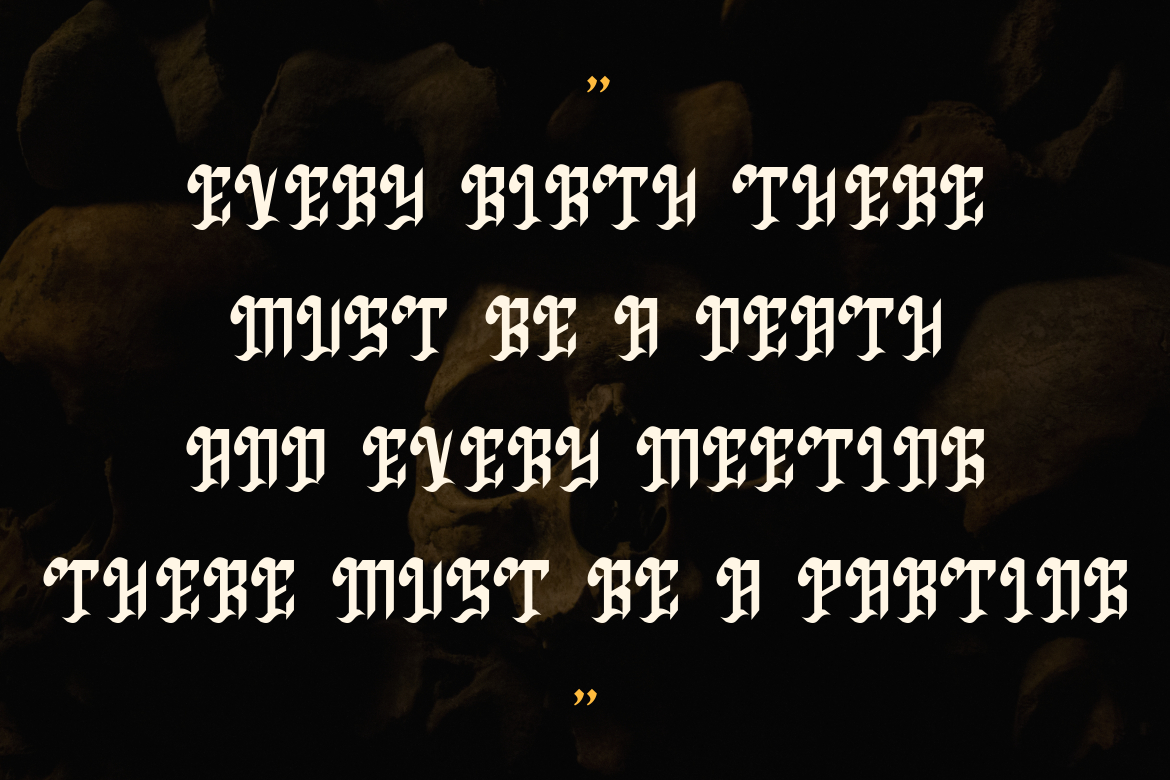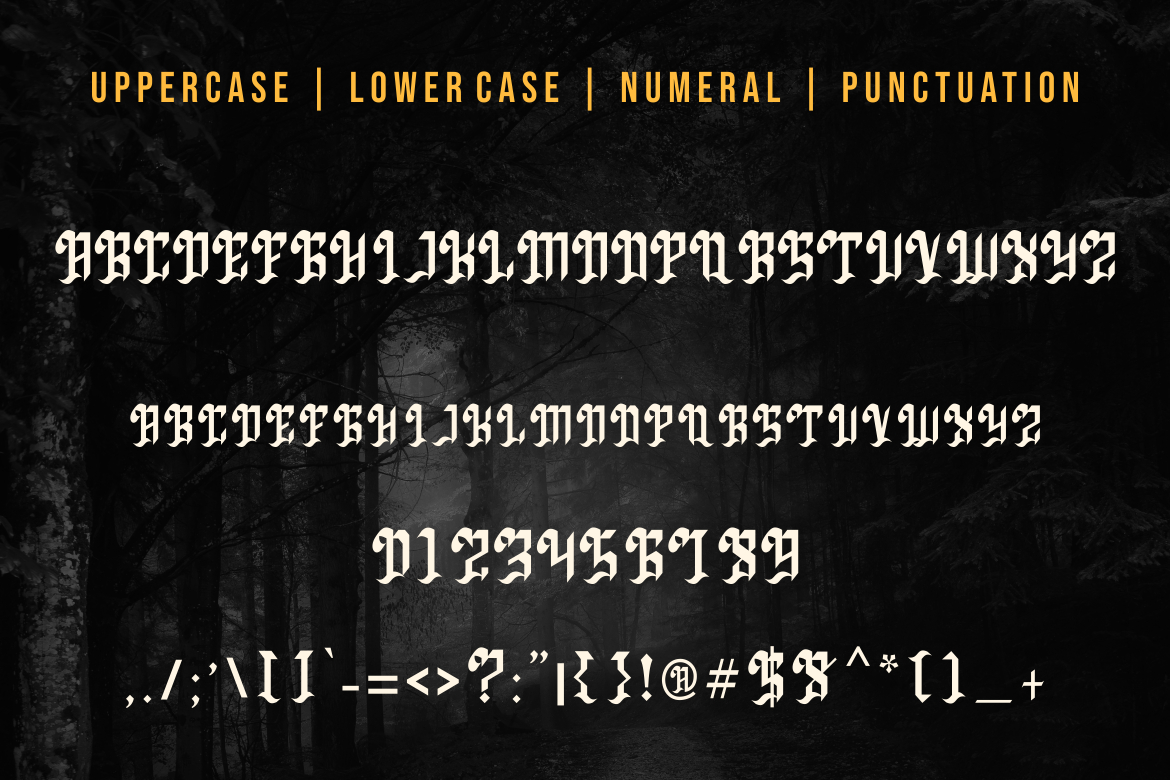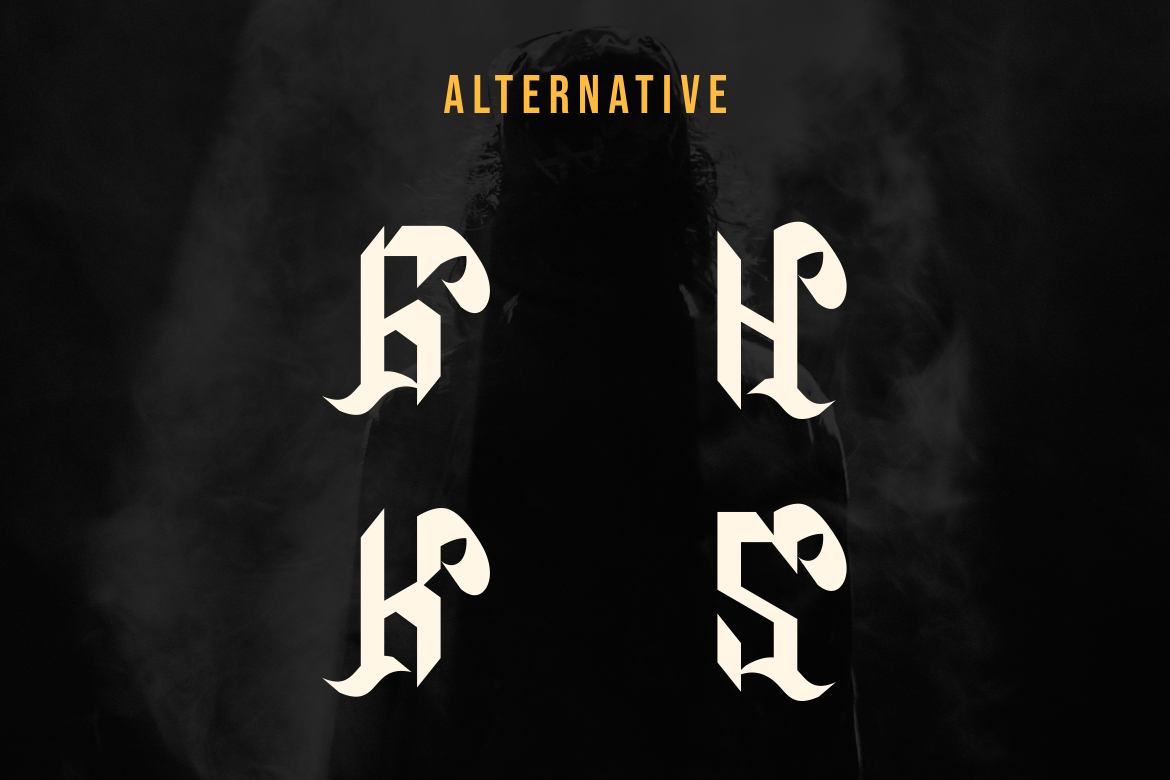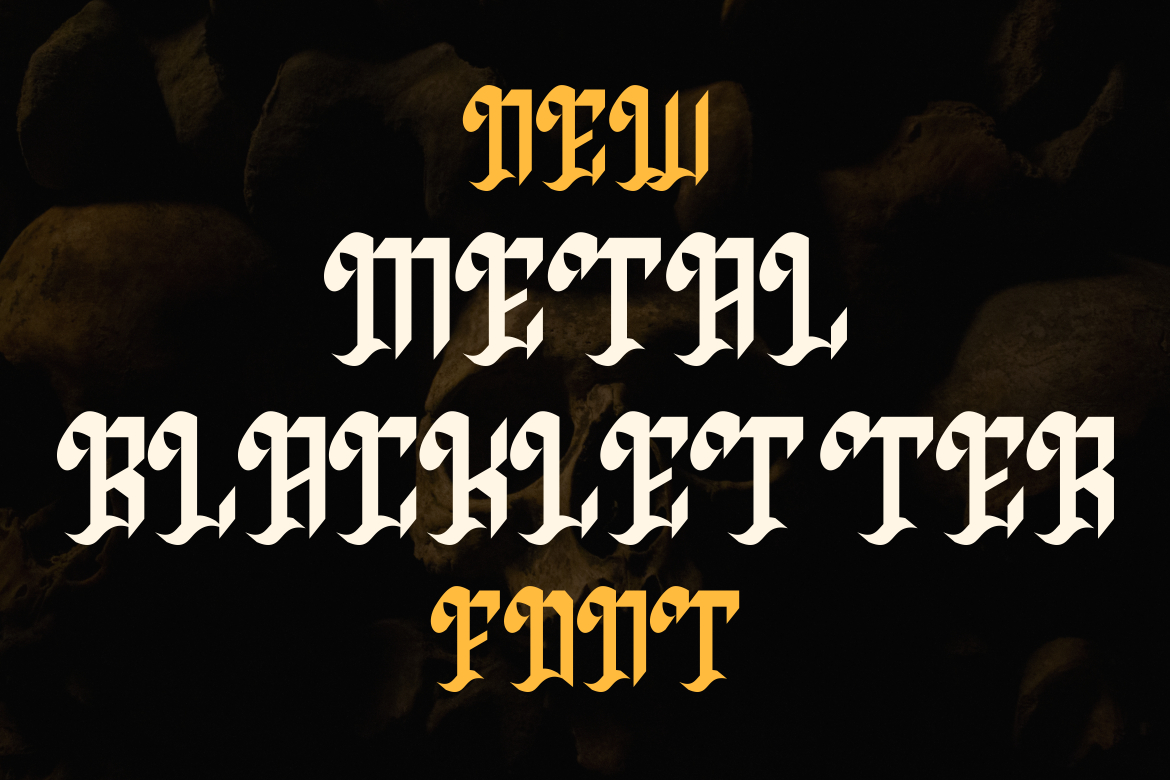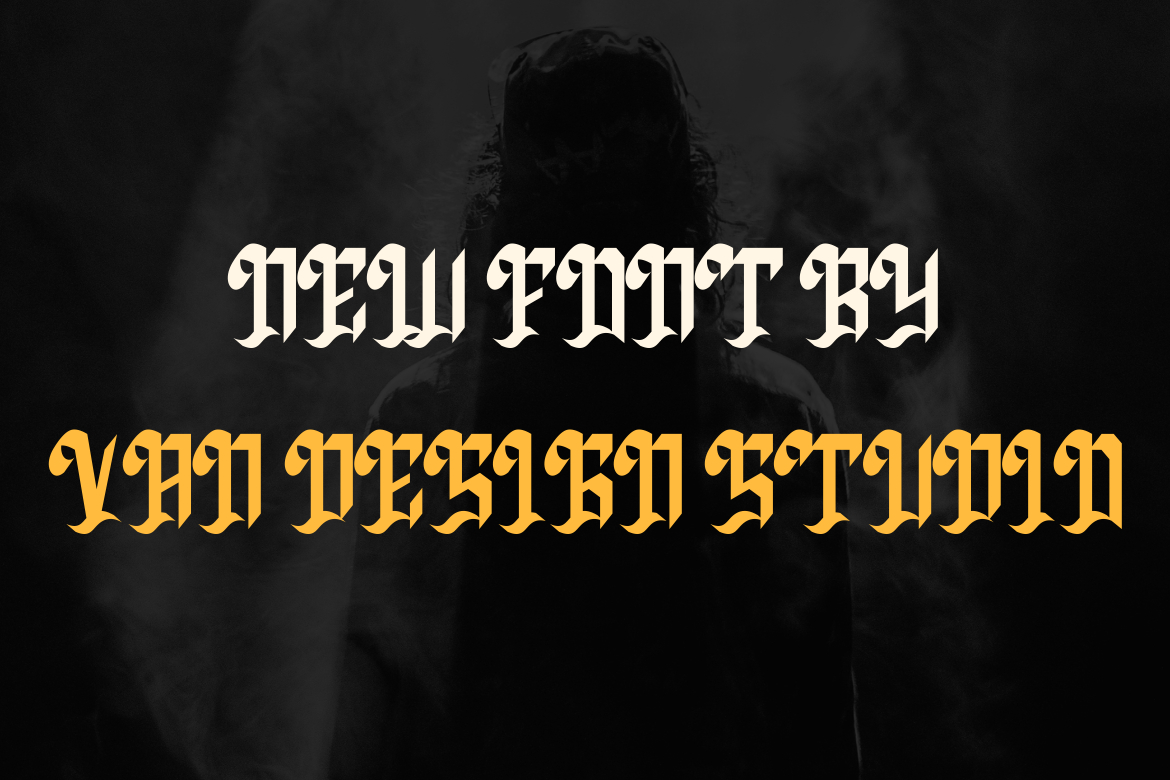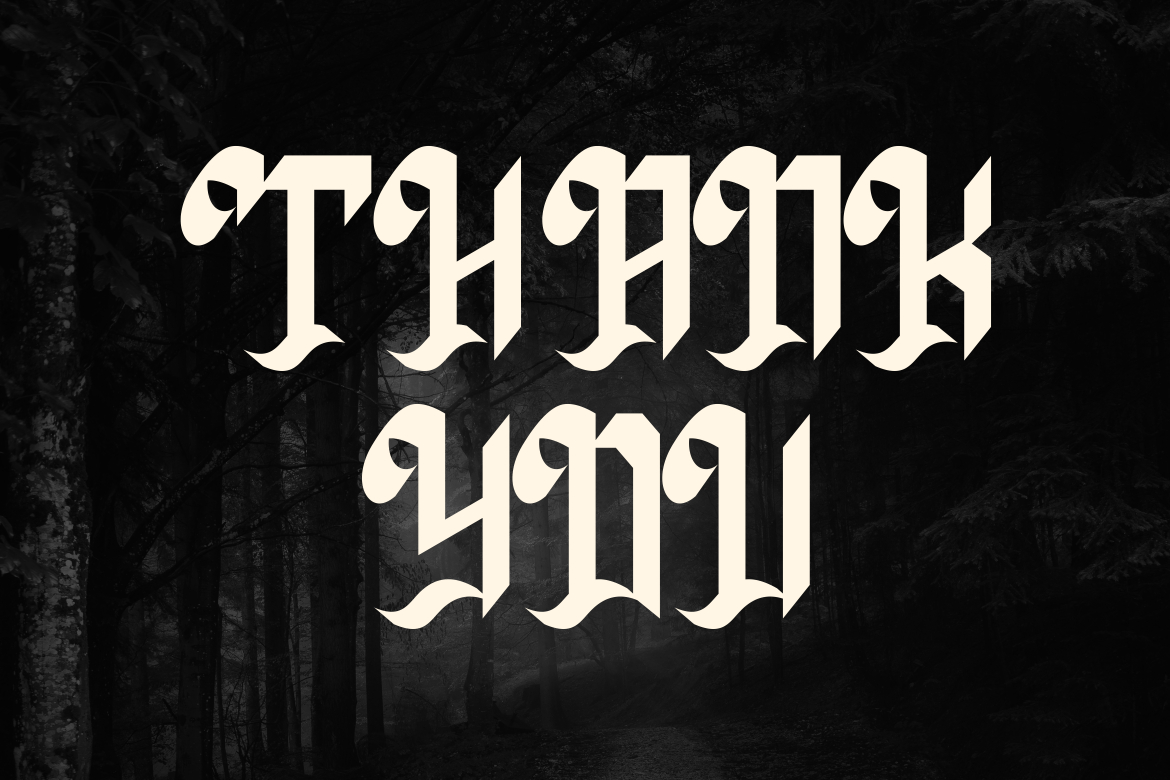
Serogas Font
About Serogas Font
Serogas is a bold and thick lettered blackletter font. Add it confidently to your projects, and you will love the results.